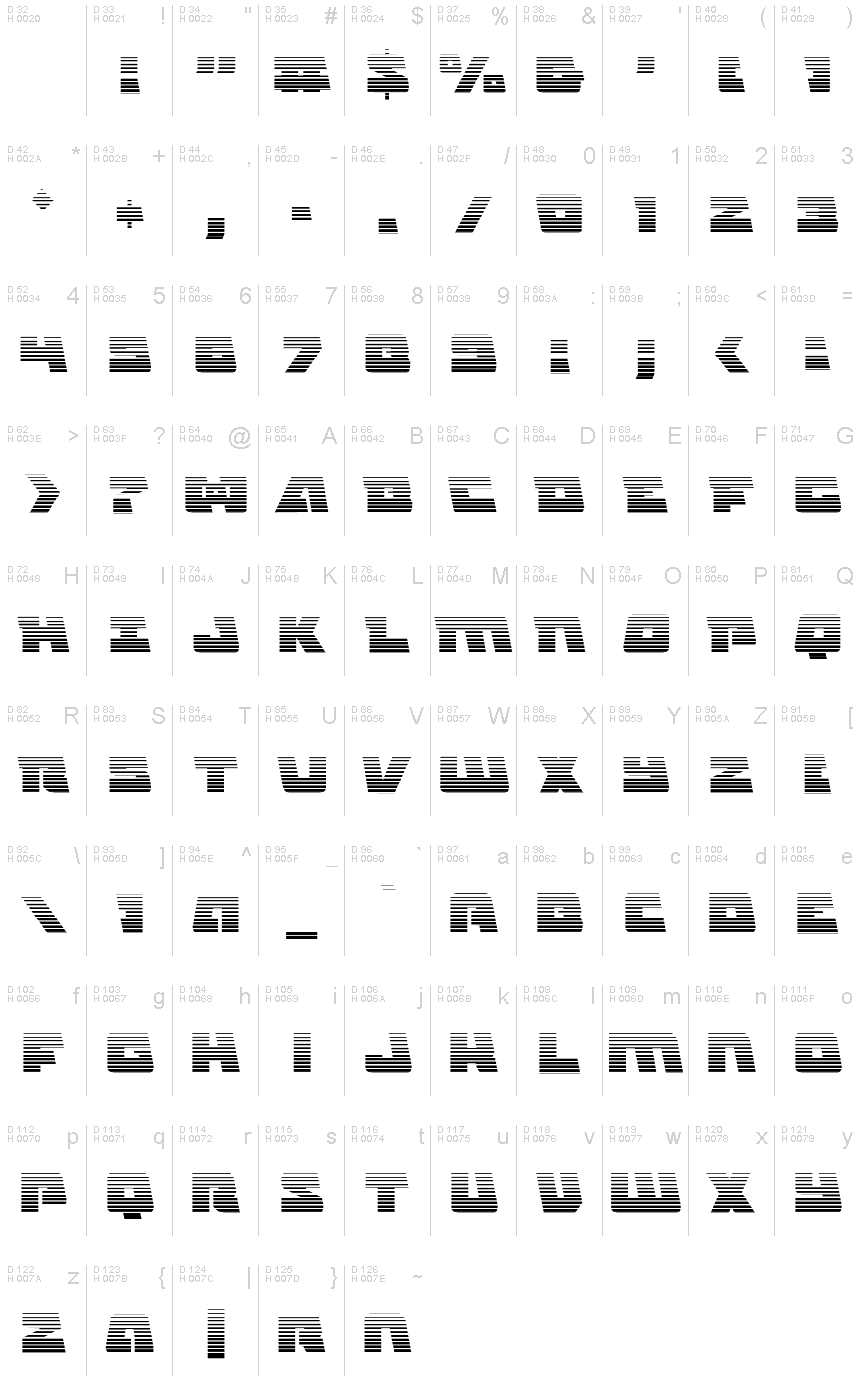
Planet Joust Light Gradient
Planet Joust Light Gradient is the futuristic display font you've been searching for. With its extra-bold weight and extra-expanded width, it commands attention on any project. The gradient effect adds a touch of modernity and sophistication to any design, making it perfect for tech-focused projects, gaming logos, or even album covers. Whether you're looking to create a futuristic brand identity or add an edgy twist to your creative endeavors, Planet Joust Light Gradient is the bold choice that won't disappoint. Designed by Iconian Fonts, this font family has everything you need to make a statement with your typography.